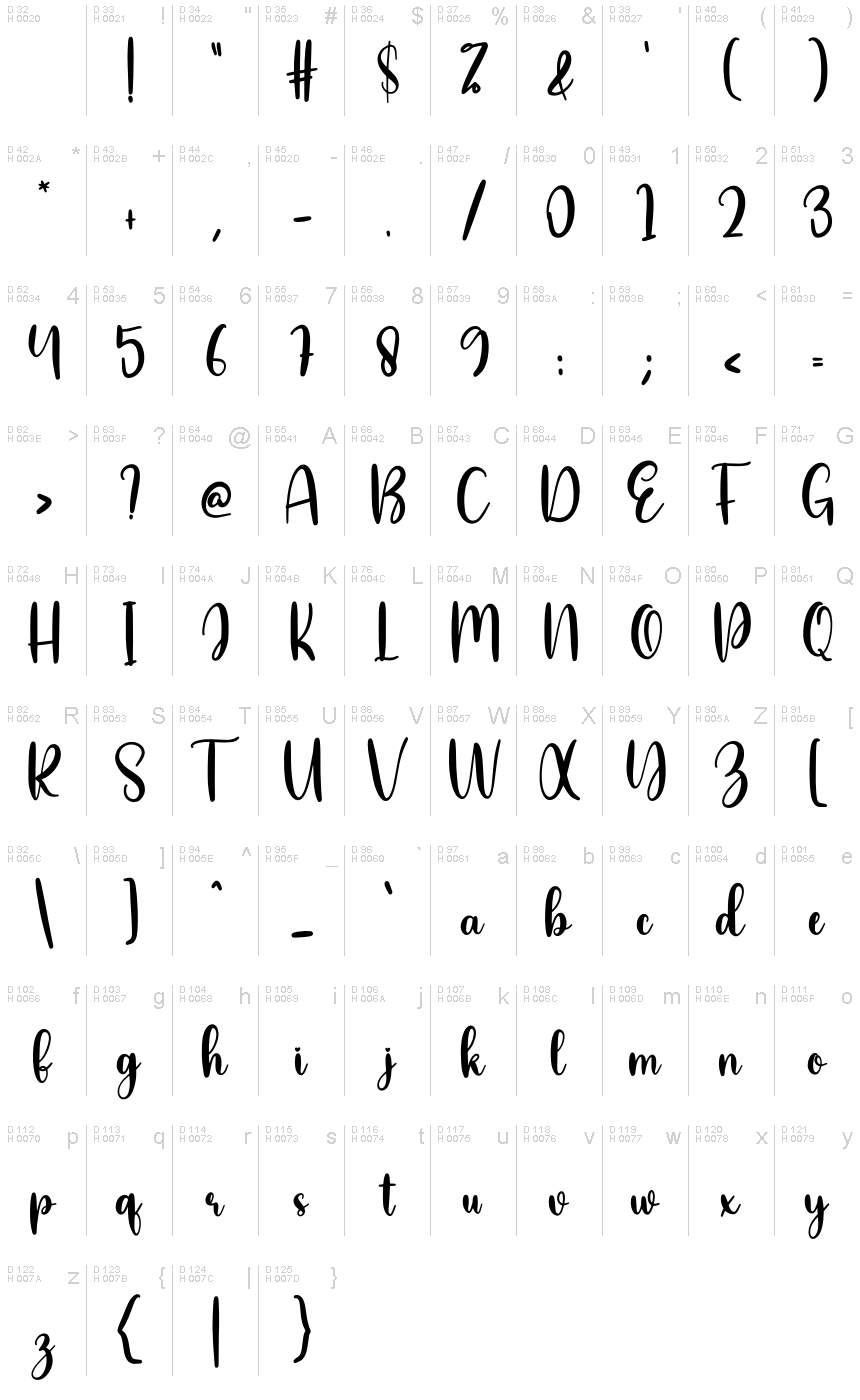
Farmstead
Farmstead font by Scratchones is a captivating handwritten typeface that exudes charm and warmth. With its smooth, flowing lines and organic shapes, this free font brings a personal touch that feels both nostalgic and contemporary. The contrasting heights of the letters add a playful yet sophisticated flair, making it perfect for branding, invitations, and digital marketing materials.
The Farmstead font is ideal for creating logos that stand out with personality or crafting compelling social media graphics. Its distinctive style ensures your projects catch the eye while conveying authenticity and creativity. Available for download, Farmstead font is an excellent choice for designers seeking to infuse their work with originality and elegance.